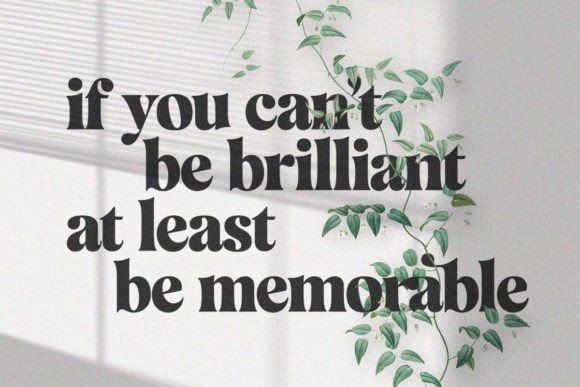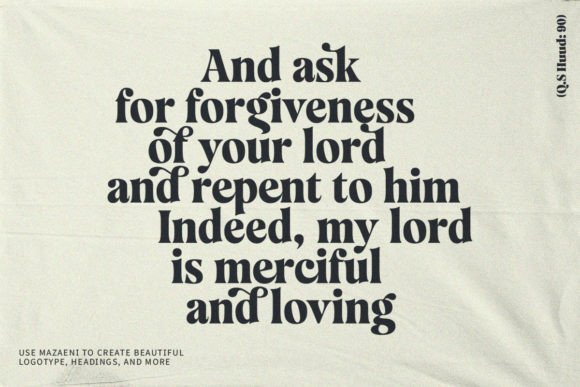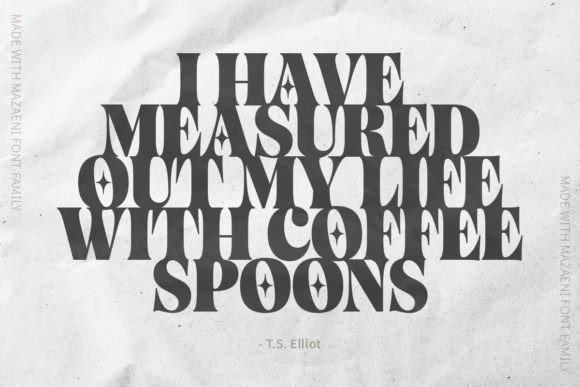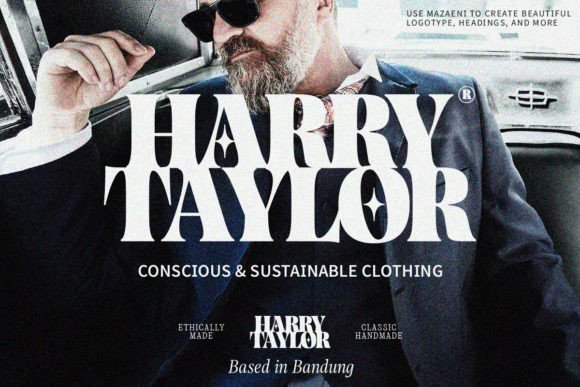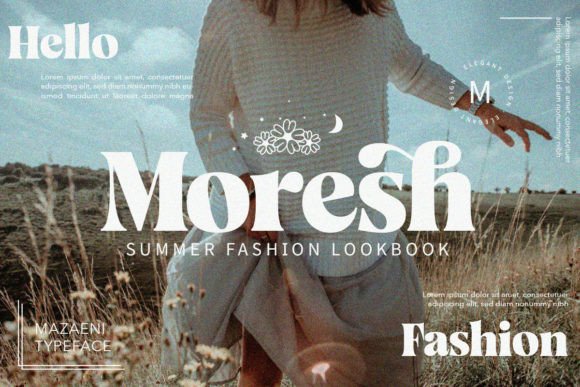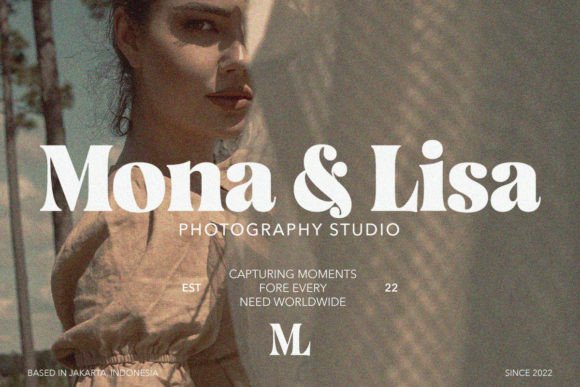
Introduction to Mazaeni Font
Have you ever found yourself staring at a blank canvas, searching for the perfect font to bring your creative project to life? It’s that moment of hesitation when you’re not sure which direction to take, and then suddenly, you stumble upon a font that makes everything click.
Meet Mazaeni Font, a daring and sophisticated display typeface designed to elevate your designs to new heights. Whether you’re working on a logotype, poster, or editorial piece, Mazaeni Font has the potential to be your new go-to design resource. With its high-quality design and versatility, it’s no wonder why designers are flocking to this font for their creative needs.
From free downloads to transparent backgrounds, Mazaeni Font offers endless possibilities for designers to experiment and push the boundaries of their art. In this article, we’ll delve into the world of Mazaeni Font and explore its features, benefits, and how it can take your designs to the next level.
Key Features of Mazaeni Font
- High-quality font designed for creative projects, ideal for use in logos, branding, and marketing materials.
- Unique, hand-drawn design with a transparent background, allowing for flexibility in composition and layout.
- Designed to be a versatile design resource, suitable for use in a variety of creative projects, from digital art to print materials.
Honest Review: Mazaeni Font
I recently came across the Mazaeni Font, and I must say it’s been a great addition to my design arsenal. As a designer, I’m always on the lookout for high-quality fonts that can elevate my creative projects.
One of the standout features of the Mazaeni Font is its transparent background, making it perfect for designing with a clear or gradient background. It’s also a great free download, which is a huge plus in my book.
- ✨ Transparent background for seamless integration
However, there are a few limitations I’ve noticed:
- ⚠️ Limited character set, which can be a challenge for complex designs
- ⚠️ Not as extensive a font family as some other options
Overall, I’m really impressed with the Mazaeni Font. It’s a solid design resource that’s perfect for a variety of creative projects. While it may not be perfect, I think it’s a great choice for designers on a budget or those looking for a high-quality font with a transparent background.
Tips for Getting the Most Out of Mazaeni Font
Experiment with different font combinations and styles to create unique and eye-catching designs. Use the font in conjunction with other design elements to enhance visual appeal.
The Mazaeni Font is ideal for a variety of projects, including logo designs, infographics, and presentations. Its high-quality design and versatility make it a valuable resource for designers and creatives.
Comparison to Mazaeni Font: While Mazaeni Font has a more playful and cursive feel, Great Vibes Font is more refined and elegant. Great Vibes Font is ideal for projects that require a high level of sophistication, whereas Mazaeni Font is better suited for more casual and creative projects.